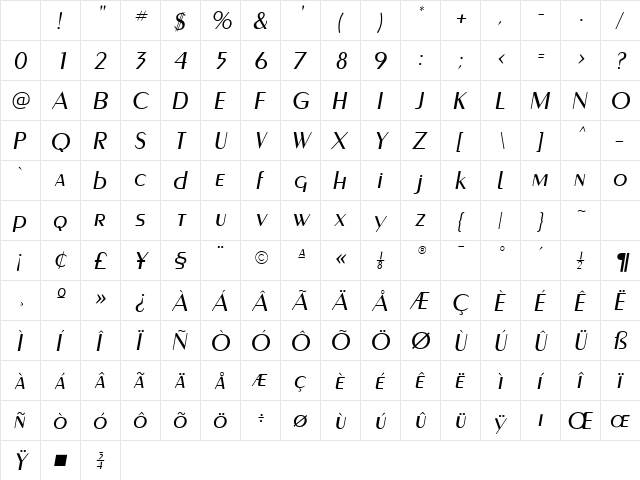
Complete Carnati SSi Italic glyph index. Displaying only characters natively supported by Carnati SSi Italic font.
Carnati SSi is a composed and adaptable typeface that performs quietly and consistently across a wide range of design contexts. The slanted form adds forward momentum and visual energy.